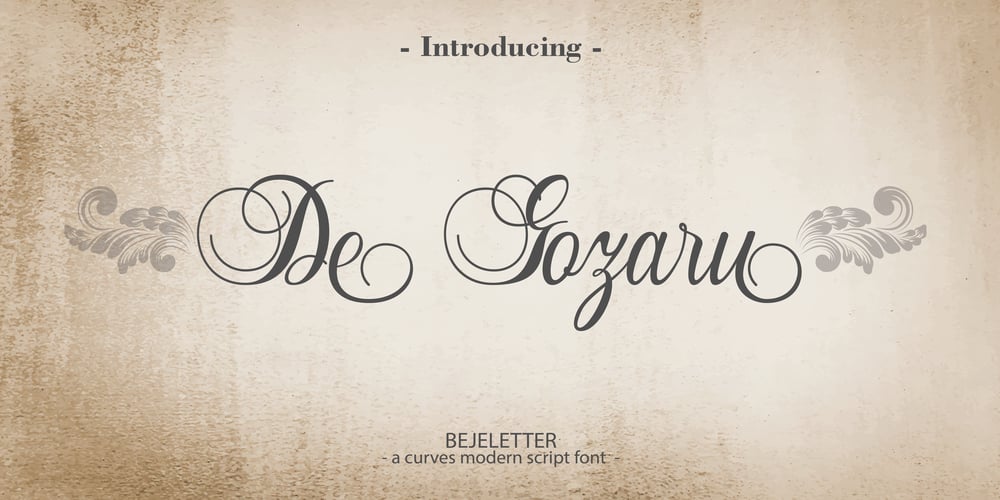
De Gozaru Font Family was designed by Bejeletter and published by Bejeletter. De Gozaru contains 2 styles and family package options. De Gozaru, is a classic calligraphy font with a beautiful arch. This font is available in several modern swirls that can make your work look elegant, sweet and perfect. This font also has several alternatives that can allow you to improvise your writing.